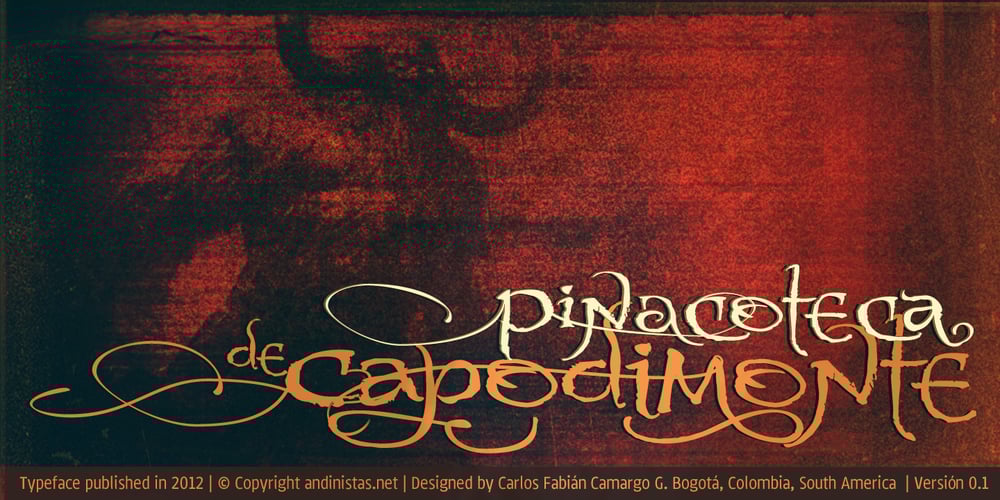
Demetria
Demetria font
Demetria Font Family was designed by Carlos Fabián Camargo Guerrero and published by Andinistas. Demetria contains 4 styles and family package options. Demetria is a font created in 2012 by Carlos Fabián Camargo and works to form words and headlines with medieval expressiveness. Thus his concept mix uncial, Roman and italic letters resulting serifs some here and there, extended width and high amount of contrast between thick and thin strokes. That way its vigorous ups and downs are higher than its “x” height, highlighting it as a font with regular caliber,outstanding to design headlines with strong proportions and texture. Consequently, typographic and aesthetic possibilities of Demetria are visually appealing by its chaotic forms that are embedded and remain fixed in the minds of its viewers; also, “Demetria Pro” has OpenType features such as “Swash”, “Titling”, “Discretionary Ligatures”, “Standard Ligatures”, Ordinals, Fractions and Superscript that make shine what is written by their abstract shapes resembling elongated paths of black ink diluted in water. This font also works in software without opentype features, so it is recommended to use the remaining files NON-PRO. In short, the expressiveness and mysticism of Demetria is reaffirmed with some capital letters with lower height designed to be interchangeable with similar metrics to lowercase but aesthetically different.Thus the font mimics strong imperfections and splashes that get slim or grow depending on their degree of spontaneity. In that sense Demetria is recommended to compose words, phrases and typographic textures in graphic design projects related to epic, historical or legendary matters.